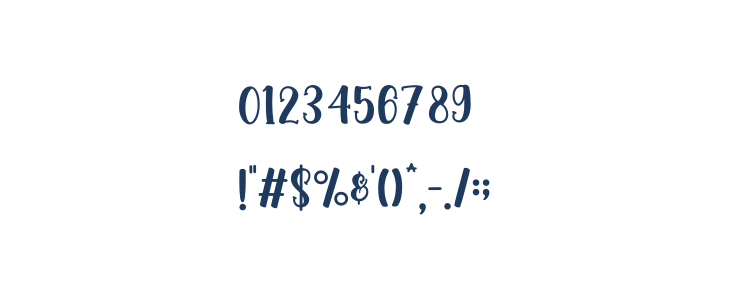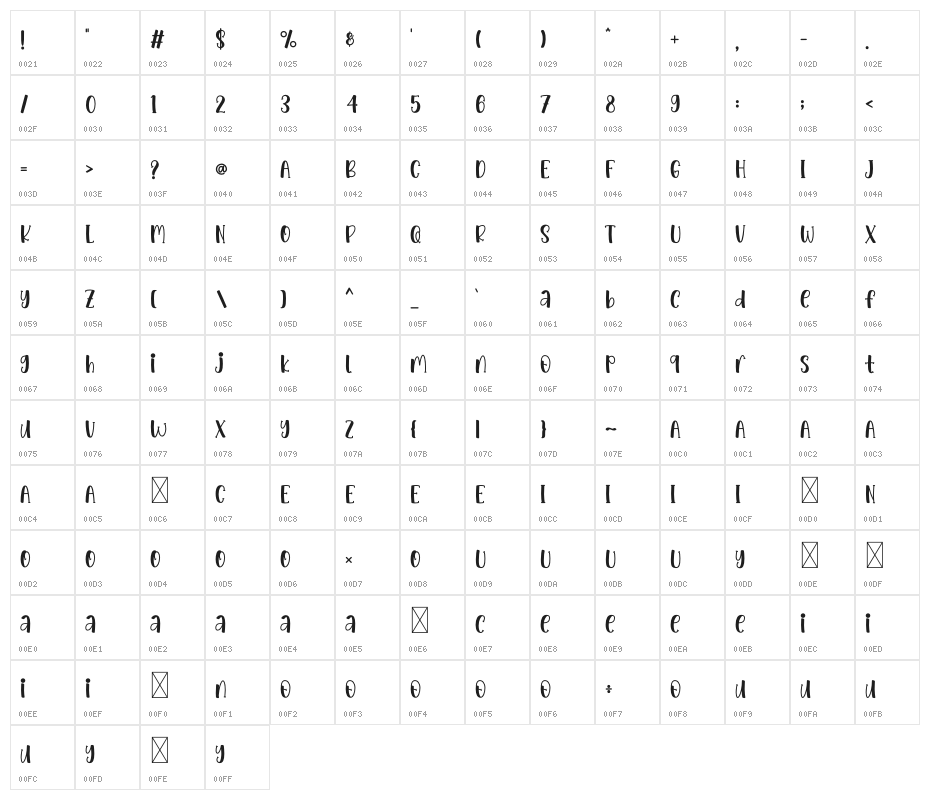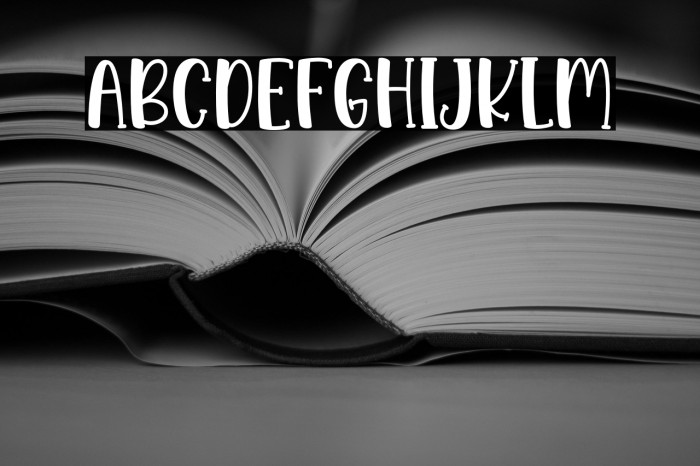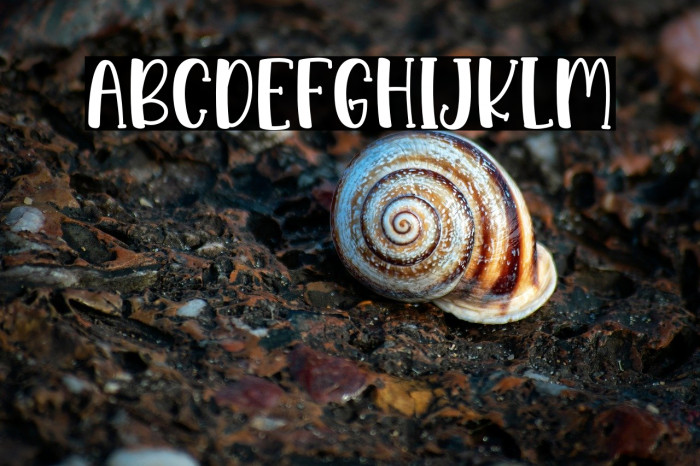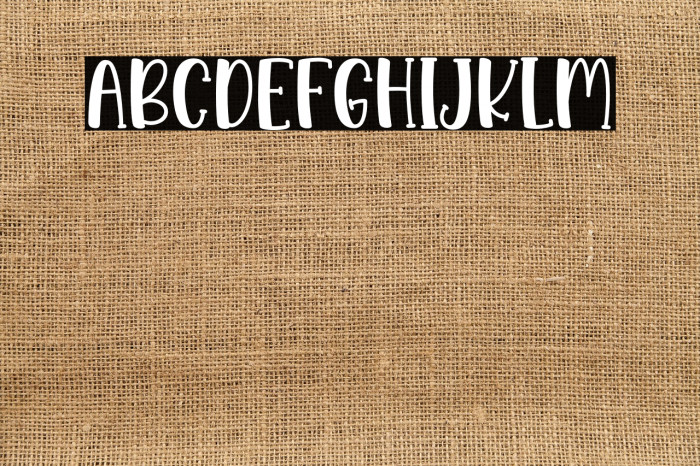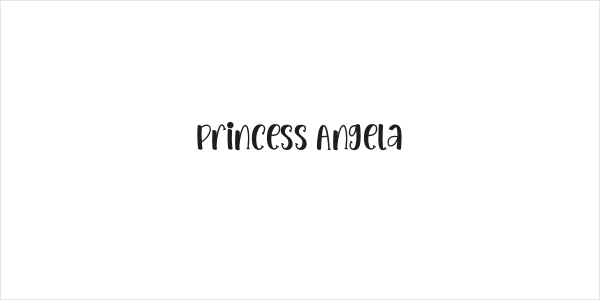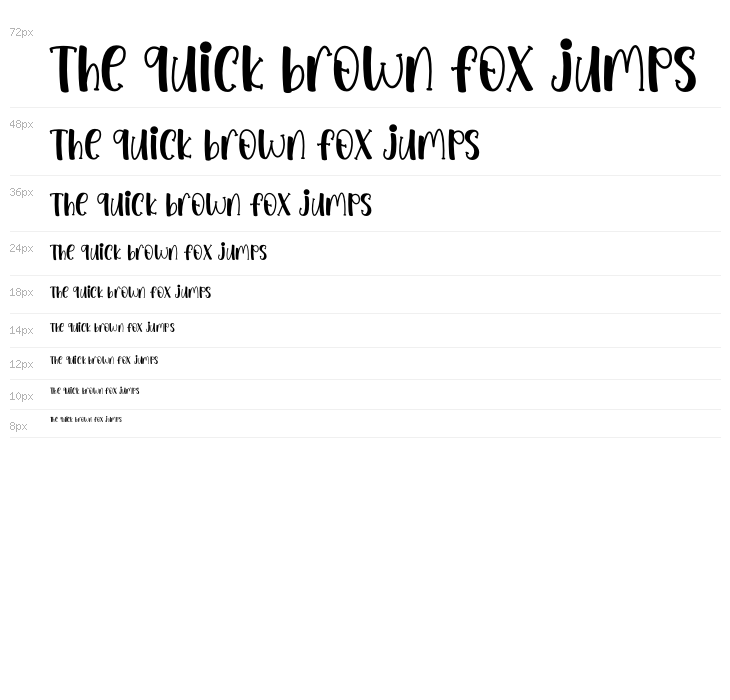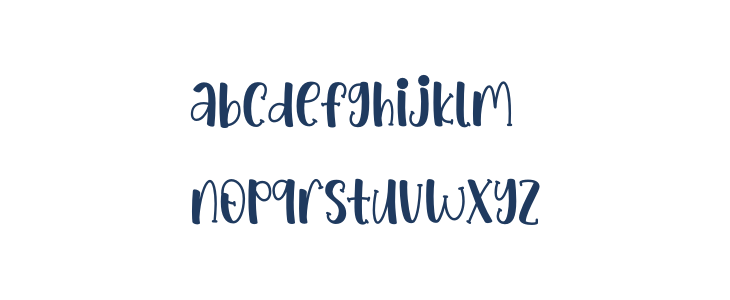
Princess Angela Font
Princess Angela Description
This font features a playful and whimsical style, characterized by its bold and rounded letterforms. The uppercase and lowercase letters exhibit a consistent flow with slightly exaggerated curves, giving it a friendly and approachable appearance. The numbers and special characters maintain this playful aesthetic, making it suitable for creative and informal designs. The strokes are thick, providing a strong visual presence, while the overall design remains legible and clear. This font is ideal for projects that require a touch of fun and creativity.
| Proposed Projects | Ideal for children's books, playful branding, greeting cards, and creative posters. |